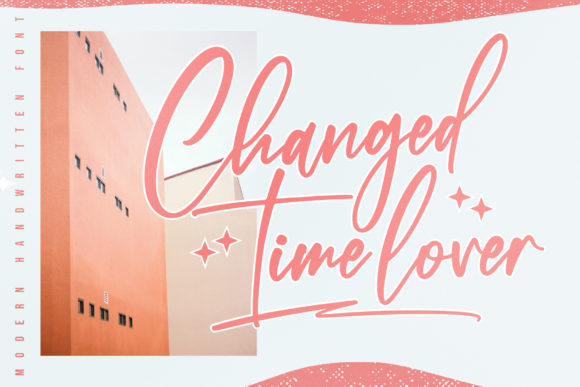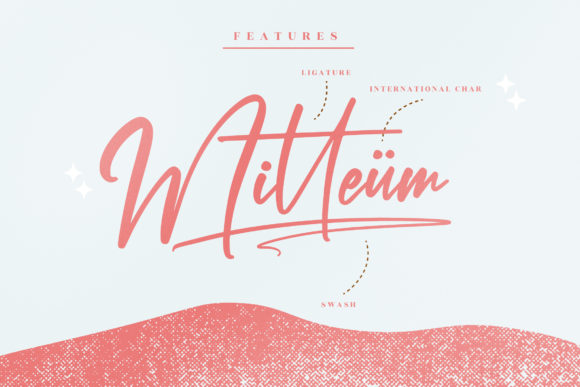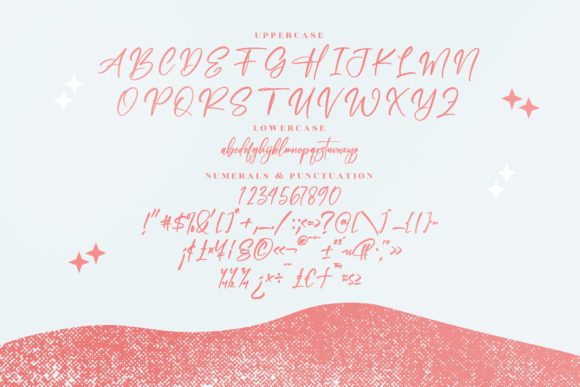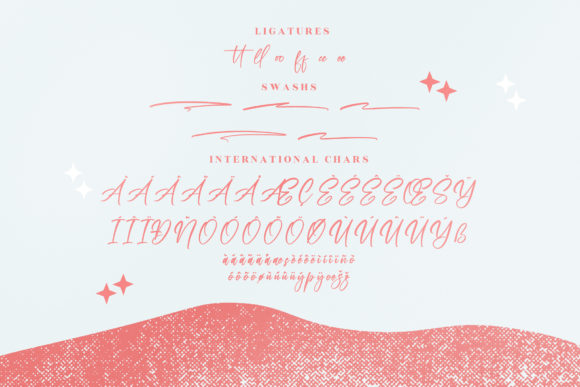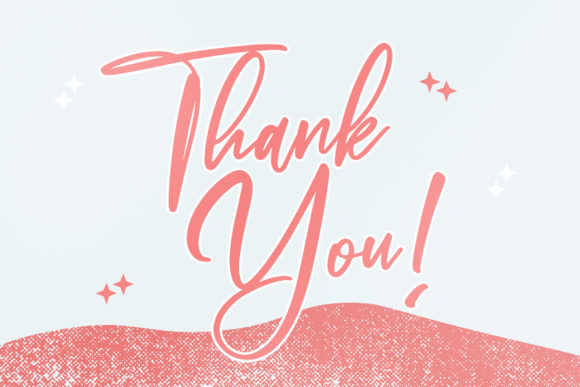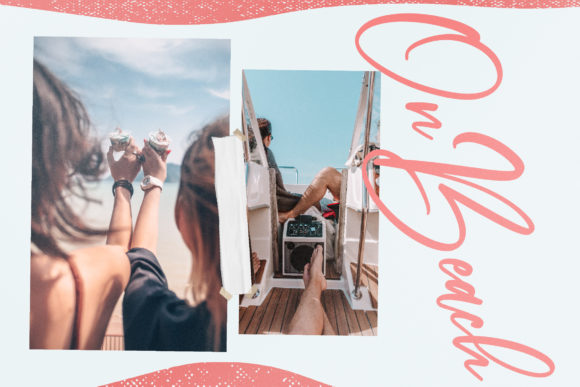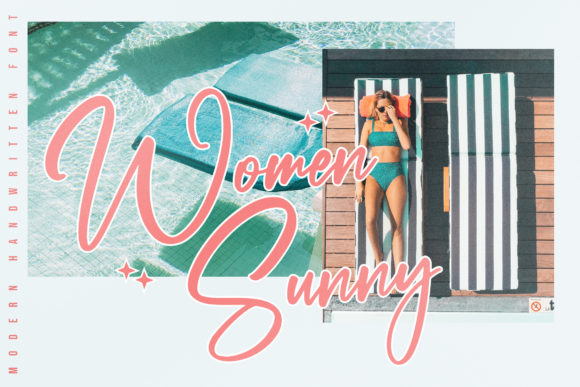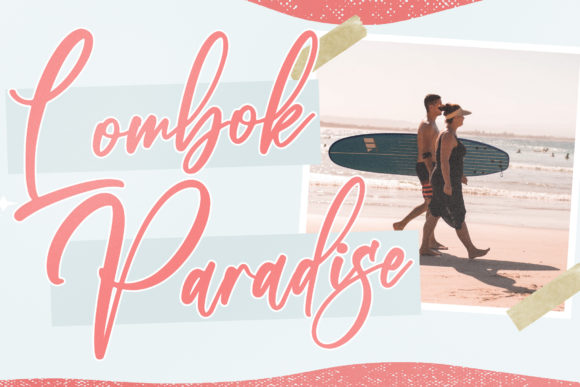
Beach Paradise Font
About Beach Paradise Font
Beach Paradise is a brushed and flexible handwritten font. It is suitable for various design needs such as business cards, wedding invitations, banner ads and various other creations.